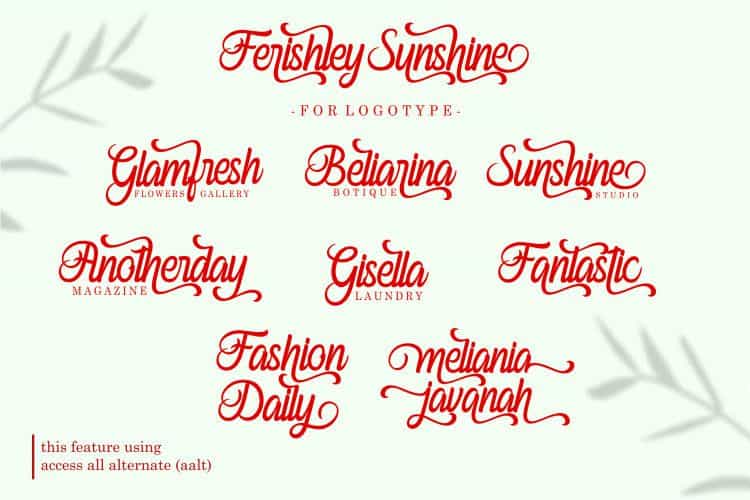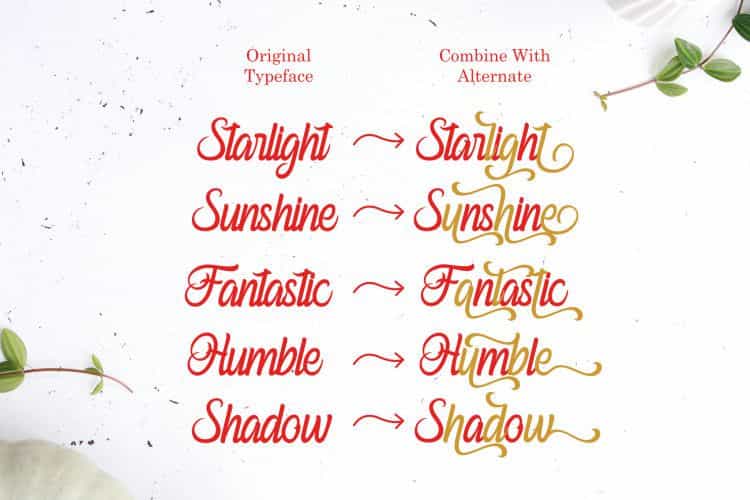
Discover Ferishley Sunshine Script Font, part of the Calligraphy Monoline collection—a versatile and unique font perfect for adding a personal touch to your projects. Download it for free and enjoy crafting designs with style, from invitations to social media posts. This font is available exclusively for personal use, giving you the freedom to create without limits. Unlock your creativity with Ferishley Sunshine Script Font today!
Presenting an exquisite font to the audience which belongs to the monoline category. It is endowed with lines that are quite suitable to be used for various uses. The name given to this font is Ferishley Sunshine Font. It has formal and romantic touch with beautiful wave is best choice for you who are looking for a typeface for logotype, typography, headline, advertising, branding, packaging design and so on.